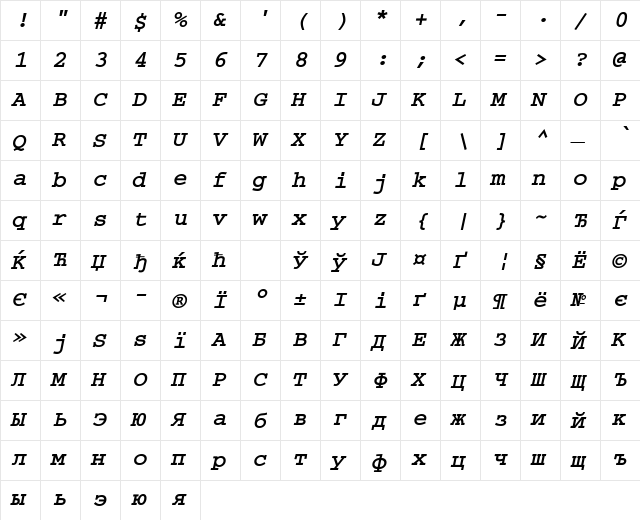
CourierWINCTT BoldItalic Font Preview
Design Context for CourierWINCTT Typeface
CourierWINCTT uses fixed-width spacing throughout, giving it the structured, systematic character associated with coding environments and technical documentation. The slanted form adds forward momentum and visual energy. Its bold stroke weight gives it real presence on the page.
Pro Tip: Use CourierWINCTT with slightly increased line-height for extended reading — fixed-width spacing can feel dense in longer passages without extra breathing room.